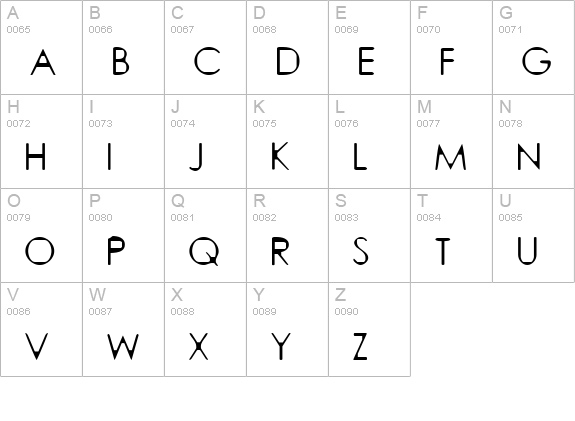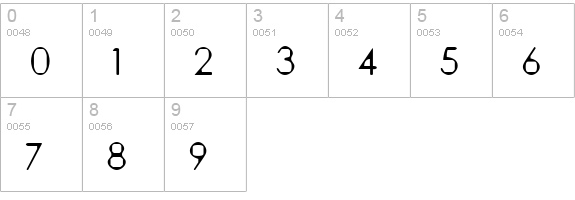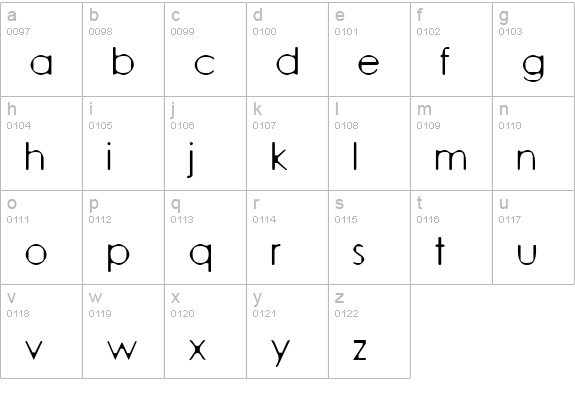
Quares Font Details
Introducing Quares, a captivating and versatile font that combines modernity with elegance. With its clean lines and sophisticated curves, Quares is the perfect choice for designers and creatives looking to make a bold statement. This font offers a wide range of weights and styles, making it incredibly versatile for various design projects. Whether you're designing a logo, creating a stunning headline, or crafting a beautiful invitation, Quares has you covered. But what sets Quares apart is not just its stunning aesthetics - it's also the fact that it's freely available for download at FontsMarket.com. Yes, you read that right! Quares can be yours without any cost, allowing you to unleash your creativity without breaking the bank. By downloading Quares, you gain access to a world of design possibilities. The font's extensive character set includes uppercase and lowercase letters, numbers, symbols, and punctuation marks, ensuring that your designs will be complete and visually striking. Quares is also exceptionally legible, making it perfect for both print and digital projects. Its versatility shines through whether it's being used for a sleek and modern website or an elegant and sophisticated magazine spread. So why wait? Visit FontsMarket.com today and discover the beauty and freedom that Quares font brings to your designs. Download this amazing font and let your creativity soar to new heights. Don't miss out on this opportunity to add a touch of elegance to your next project, all for free with Quares font.